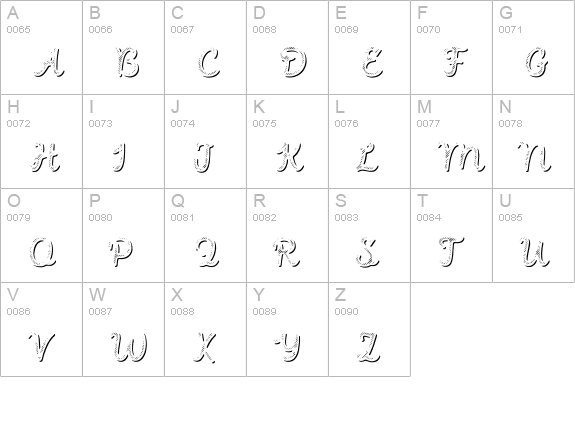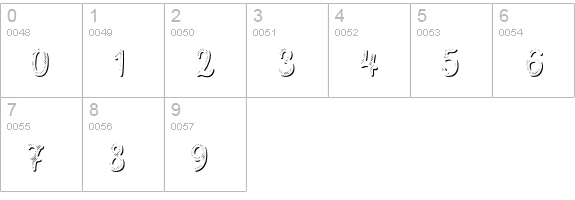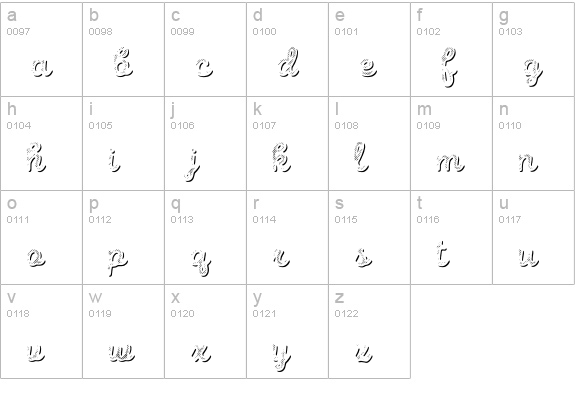
Intro Script B L Shade Font Details
Intro Script B L Shade font is a captivating and elegant typeface that exudes sophistication and charm. Its intricate design features beautiful shading and intricate details that make it ideal for adding a touch of class to any project. This font is perfect for creating stylish invitations, luxurious branding materials, or eye-catching headlines. The best part about Intro Script B L Shade font is that it is available for free at FontsMarket.com. You can easily download this stunning font and use it in your designs without any cost. With its unique style and timeless appeal, Intro Script B L Shade font is a must-have addition to your font collection. Let your creativity shine with this exquisite typeface that will elevate your designs to the next level.